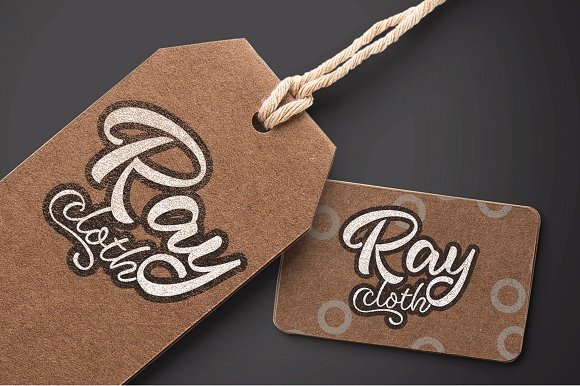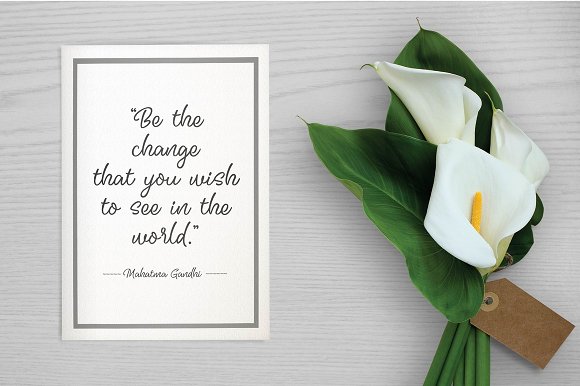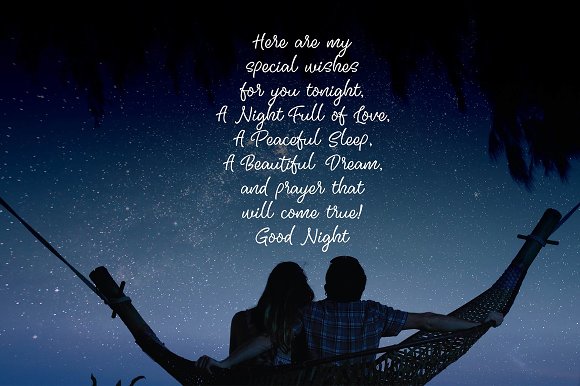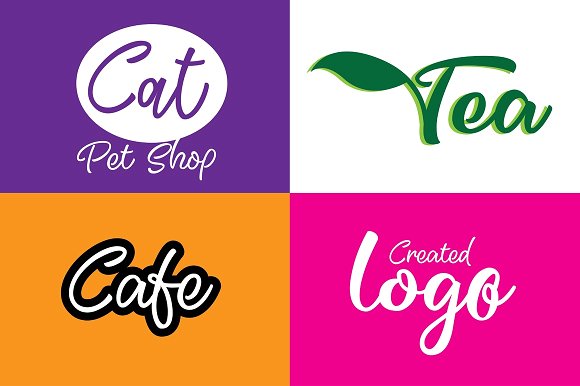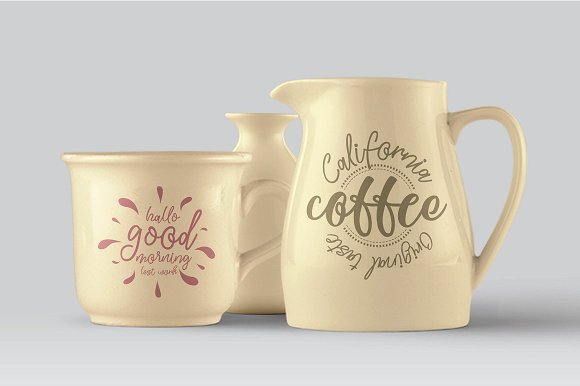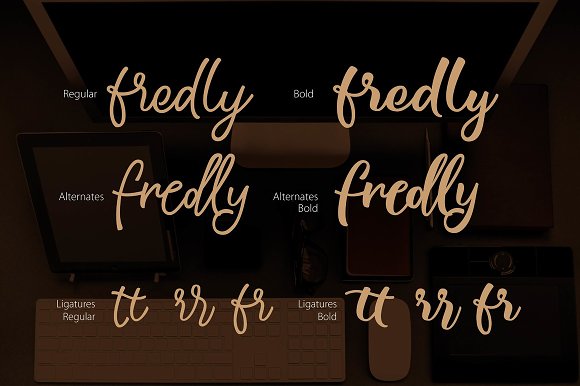
Introducing Fredly Font: A Beautiful Handwritten Script for Creative Projects
Are you looking for a font that can add a personal touch to your designs? Look no further than Fredly Font, a stunning handwritten script that is perfect for a wide range of creative projects. In this article, we’ll take a closer look at the features and benefits of Fredly Font, and explore how it can be used to elevate your designs.
What is Fredly Font?
Fredly Font is a beautiful handwritten script that is designed to be both elegant and easy to read. It’s a fluid font that works well in many different types of projects, from marketing and branding to craft projects and personal designs. With its professional look and feel, Fredly Font is perfect for anyone looking to add a touch of sophistication to their work.
Key Features of Fredly Font
• Handwritten Script: Fredly Font is a handwritten script that is designed to look natural and effortless. It’s perfect for adding a personal touch to your designs.
• Fluid and Versatile: Fredly Font is a fluid font that works well in many different types of projects. It’s perfect for use in marketing and branding, as well as craft projects and personal designs.
• Easy to Read: Despite its elegant look, Fredly Font is easy to read and understand. This makes it perfect for use in body text, as well as headlines and titles.
• Professional Look: Fredly Font has a professional look and feel that is perfect for use in business and marketing materials.
Uses for Fredly Font
Fredly Font is a versatile font that can be used in a wide range of creative projects. Here are just a few examples:
• Marketing and Branding: Use Fredly Font to create professional-looking marketing materials, such as brochures, flyers, and business cards.
• Craft Projects: Fredly Font is perfect for use in craft projects, such as scrapbooking, card making, and DIY tutorials.
• Personal Designs: Use Fredly Font to add a personal touch to your personal designs, such as invitations, announcements, and social media graphics.
• Web Design: Fredly Font can be used in web design to create beautiful and professional-looking website headers, titles, and body text.
Benefits of Using Fredly Font
There are many benefits to using Fredly Font in your creative projects. Here are just a few:
• Adds a Personal Touch: Fredly Font adds a personal touch to your designs, making them stand out from the crowd.
• Improves Readability: Despite its elegant look, Fredly Font is easy to read and understand, making it perfect for use in body text.
• Versatile: Fredly Font can be used in a wide range of creative projects, from marketing and branding to craft projects and personal designs.
• Professional Look: Fredly Font has a professional look and feel that is perfect for use in business and marketing materials.
Tips for Using Fredly Font
Here are a few tips for using Fredly Font in your creative projects:
• Use it Sparingly: While Fredly Font is beautiful, it’s best to use it sparingly to avoid overwhelming your designs.
• Pair it with Other Fonts: Fredly Font pairs well with other fonts, such as sans-serif fonts and serif fonts.
• Experiment with Colors: Fredly Font looks great in a variety of colors, so don’t be afraid to experiment and find the perfect color for your design.
Fredly Font is a beautiful handwritten script that is perfect for a wide range of creative projects. With its professional look and feel, fluid and versatile design, and easy readability, Fredly Font is a great choice for anyone looking to add a personal touch to their designs. Whether you’re a designer, crafter, or business owner, Fredly Font is a great addition to your font collection.